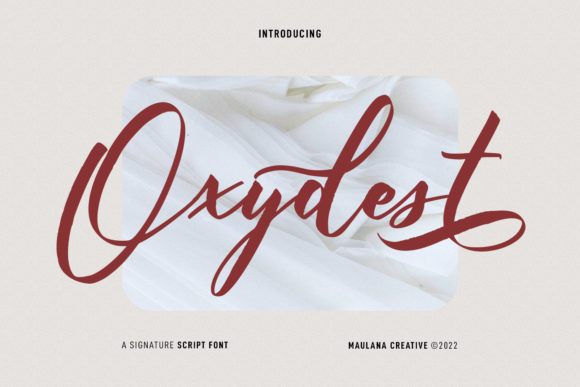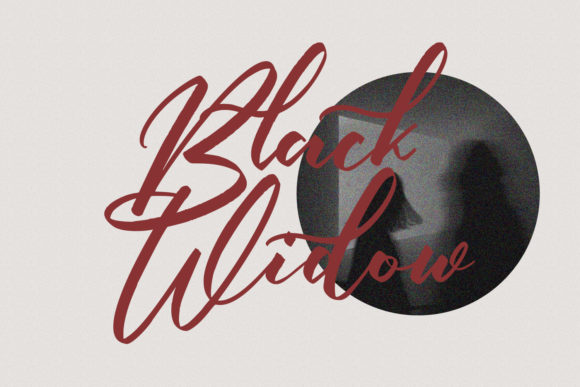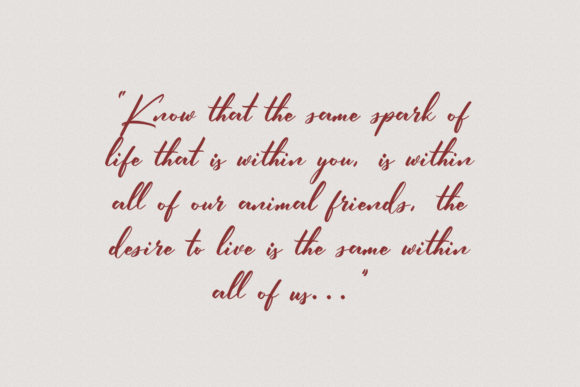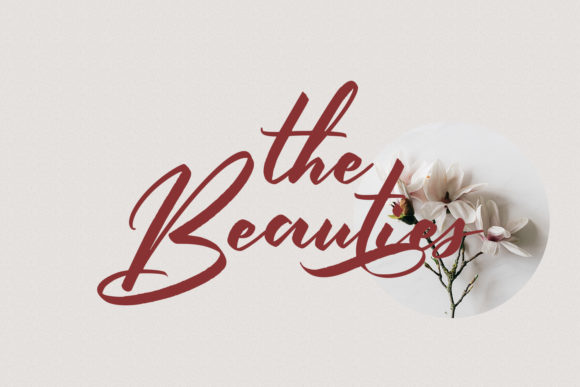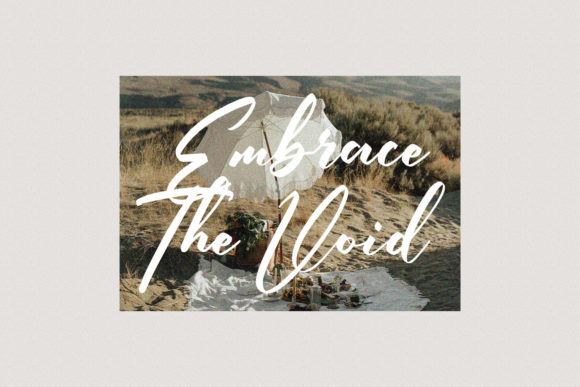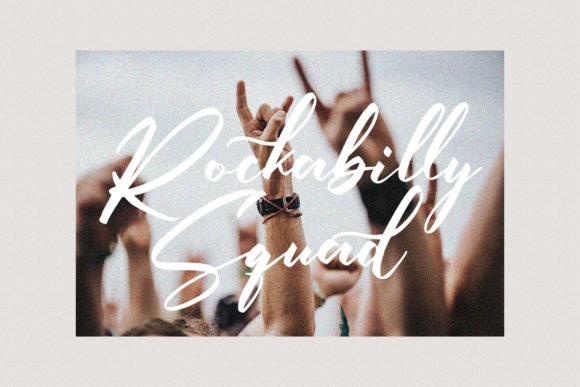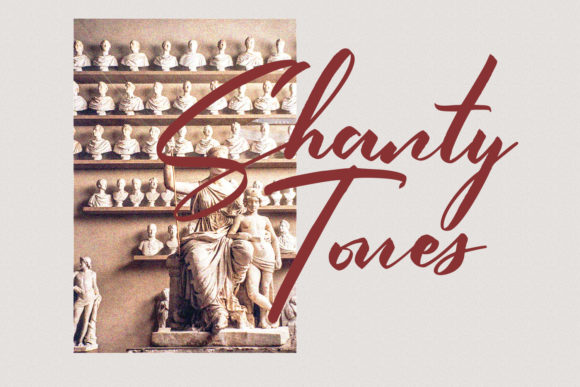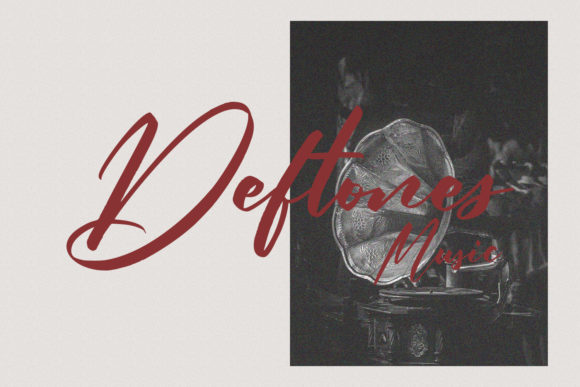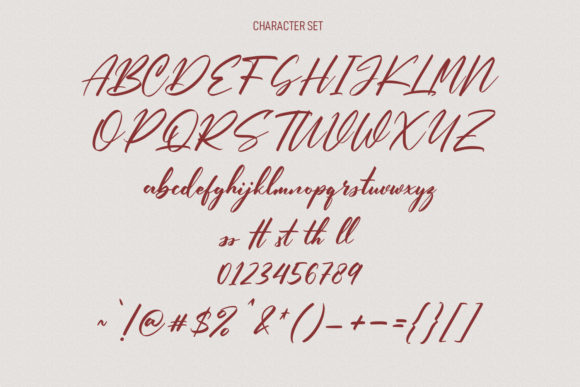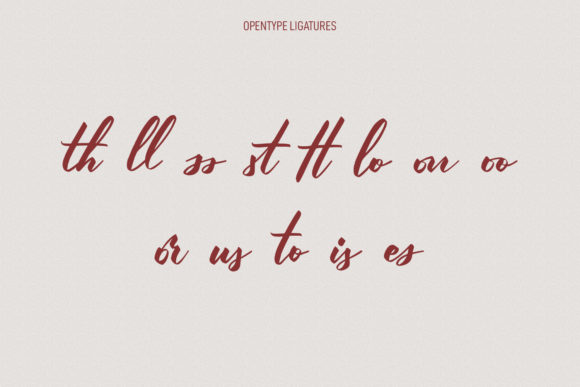
Oxydest Font
About Oxydest Font
Oxydest is a fancy script font. It features high contrast strokes, fun characters, ligatures and alternates. Add this font to your most creative ideas, and notice how it makes them stand out!